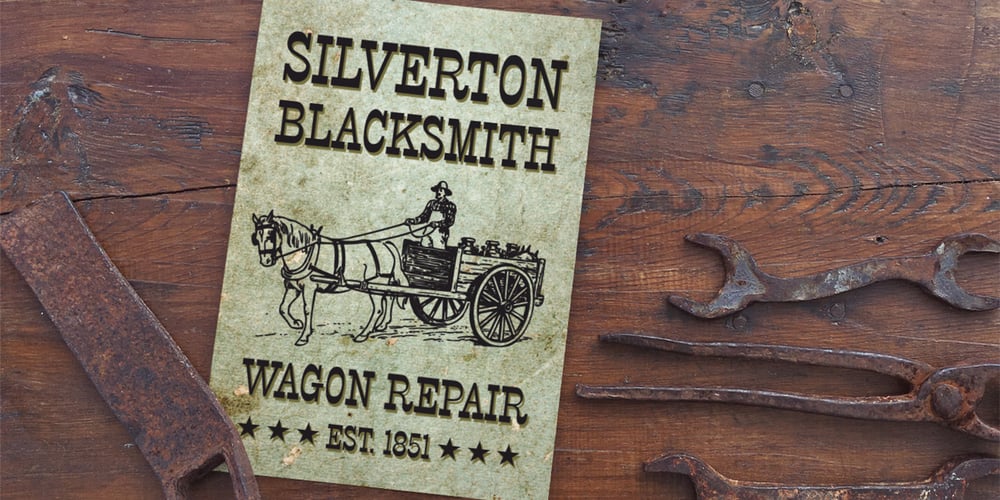
Westside Font Family was designed by Adrian Frutiger and published by Linotype. Westside contains 1 styles and family package options. Westside was designed by Adrian Frutiger in 1989 and is a kind of wood type. It is reminiscent of dusty streets, Wild West heroes and swinging saloon doors. The origins of this kind of typeface can be found in the early 19th century. Called Italian or Italienne, these typefaces quickly became very popular. They are distinguished by square serifs whose width is larger than the stroke width of the characters. When the letters are set together, the heavy serifs build dark horizontal bands. Westside is a particularly decorative typeface which will have a marked effect when used expertly. It is perfect for headlines in larger point sizes, which will highlight its special character.